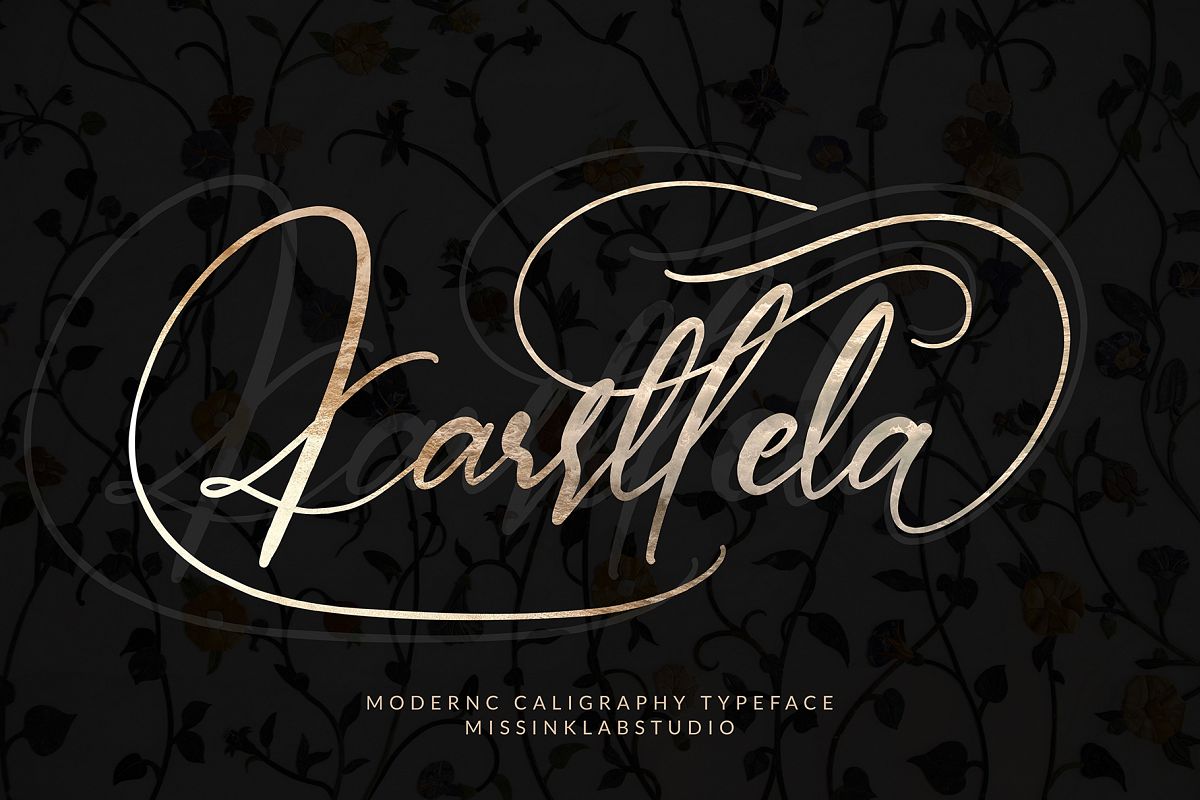
Karttela
Karrttela font with new style, this font will perfect for many different project ex: quotes, logo, blog header, poster, banding, fashion, apparel, letter, invitation, stationery, etc...